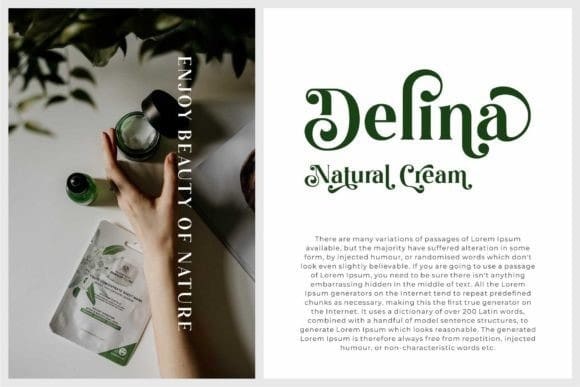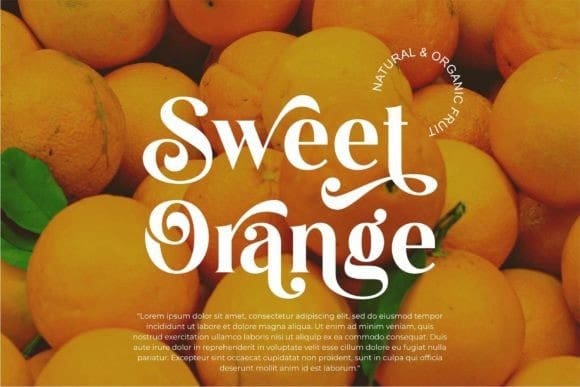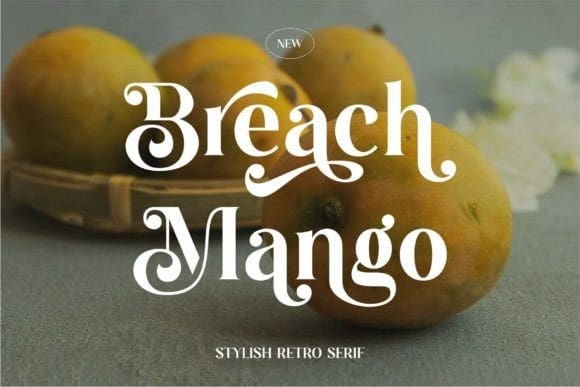
Breach Mango Font
Breach Mango Font – Stylish Retro Serif Font, inspired by the famous minimalist logo perfect for the purposes of designing templates, brochures, videos, advertising branding, logos, invitations, layout design, elegant crafting, beauty design, and more.